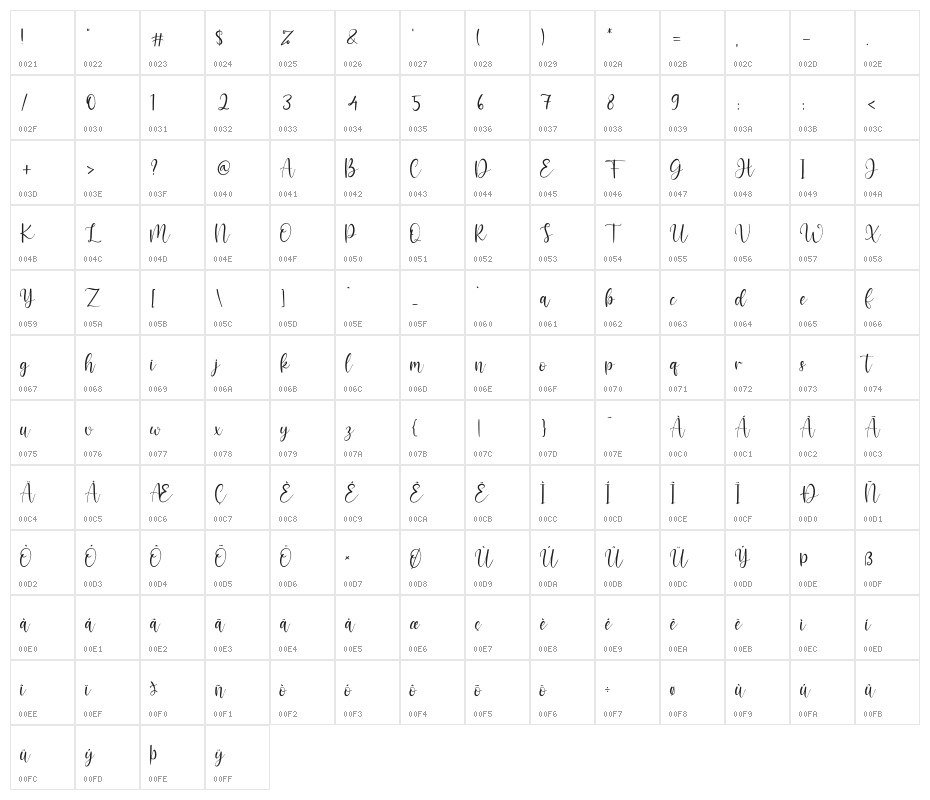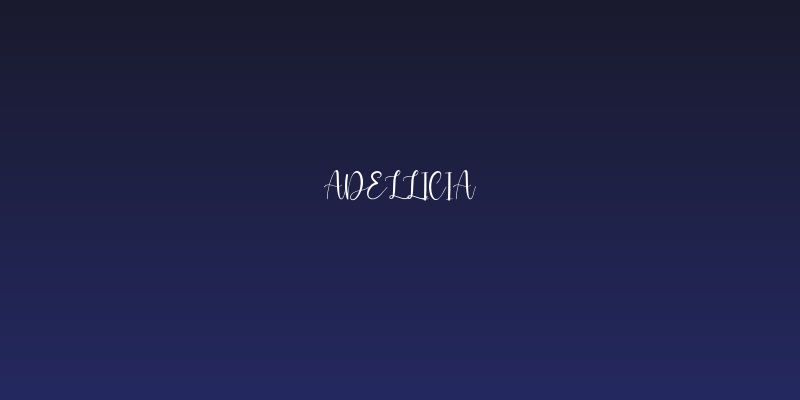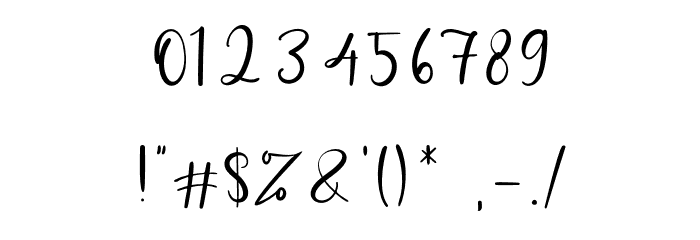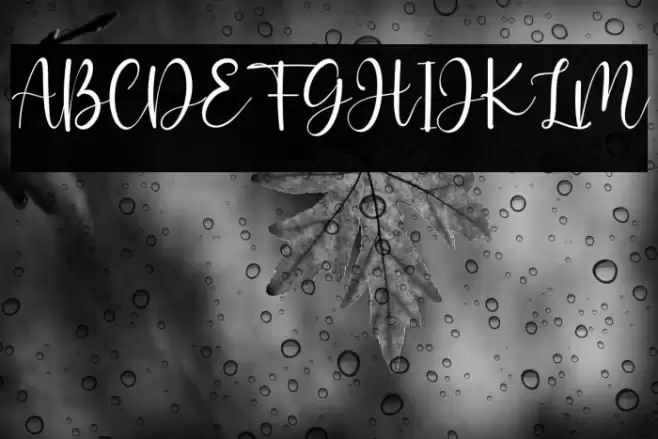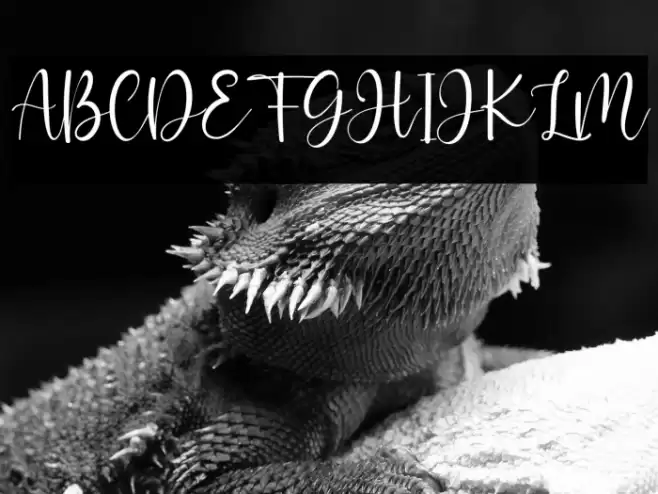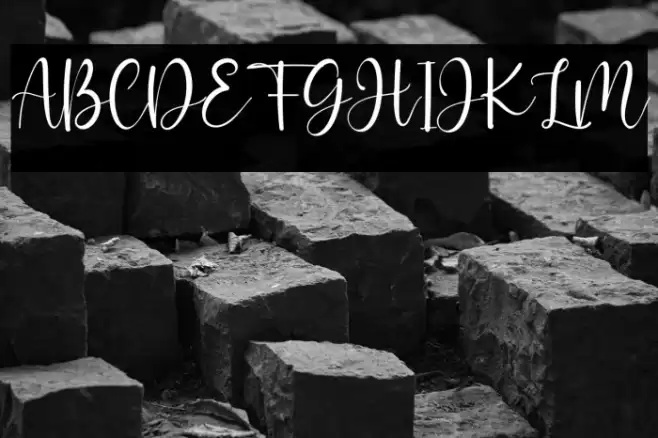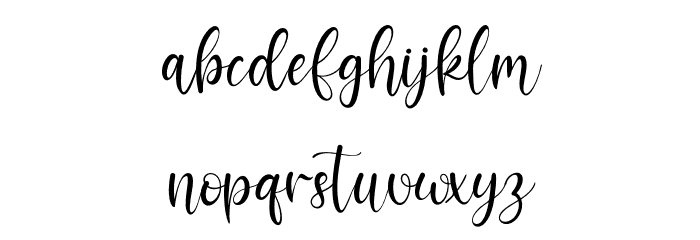
Adellicia Font
Adellicia Description
This font features an elegant and flowing script style, characterized by its smooth, cursive strokes and artistic flair. The uppercase letters exhibit a graceful, sweeping form, while the lowercase letters maintain a consistent, fluid motion, enhancing readability. The numerals and special characters complement the overall aesthetic with their cohesive design. This font's delicate curves and stylish appearance make it suitable for projects that require a touch of sophistication and charm.
| Use Case | Headlines, Invitations, Branding |
| Proposed Projects | Ideal for wedding invitations, greeting cards, branding, and elegant packaging designs. |